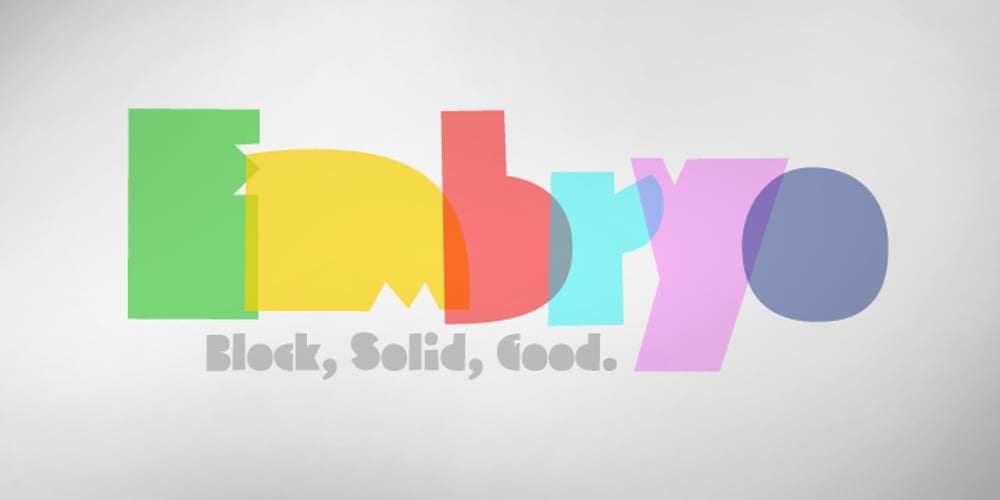
Embryo Font Family was designed by Hannes von Döhren and published by HVD Fonts. Embryo contains 1 styles and family package options. Typedesigner Hannes von Döhren created a display typeface called “Embryo”. A superblack, sweet font with filled counters. Perfect for use in big sizes on posters or flyers. Embryo has an extended character set to support Western, Central and Eastern European languages.